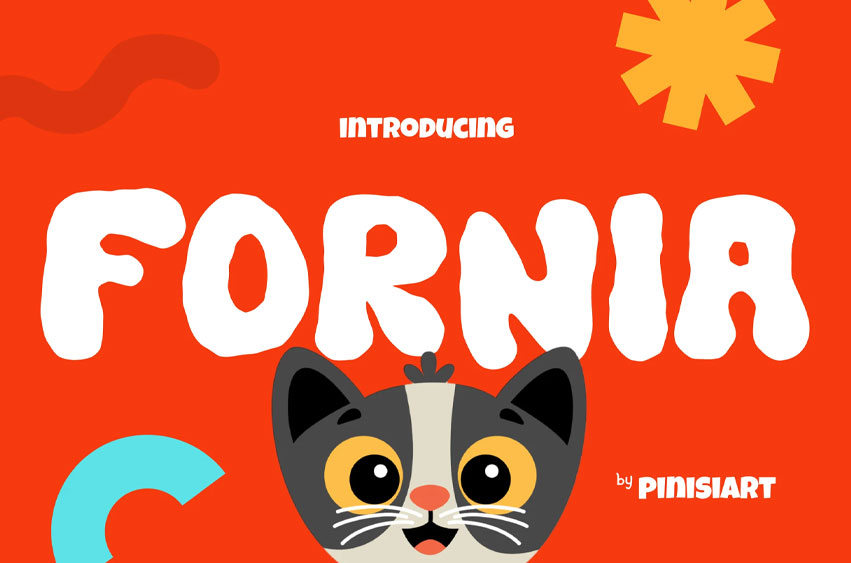
Fornia Font
Fornia Font is a playful kids display font with soft rounded curves, bouncy baselines, and a bold, expressive look that instantly adds energy to any design. Its friendly vibe makes it ideal for children’s books, posters, branding, and playful packaging. With a vibrant flow and smooth letter proportions, Fornia is a font that captures joy while staying highly readable.
Designed to spark creativity, Fornia works seamlessly across branding, posters, editorial layouts, kids products, digital ads, and social media campaigns. Whether you’re creating educational content, cheerful product packaging, or eye-catching Instagram graphics, this font delivers a warm and inviting tone that connects with both children and adults.
• Playful personality with rounded, bouncy letterforms
• Highly versatile for digital, print, and packaging projects
• Kid-friendly readability perfect for storybooks and classroom designs
• Expressive vibe for posters, quotes, and merchandise
• Professional usability with smooth spacing and balanced contrast